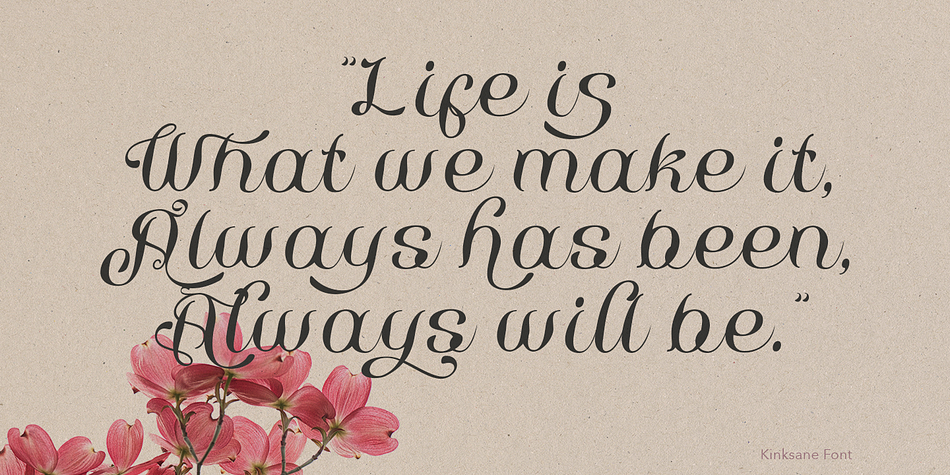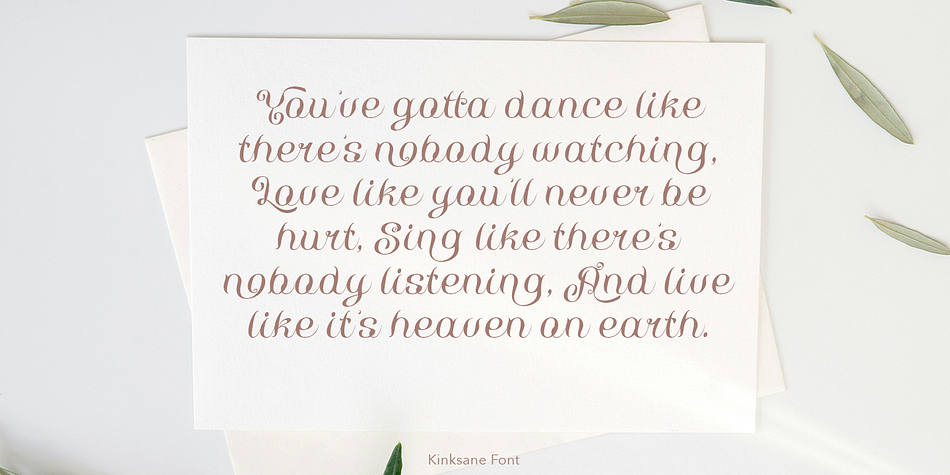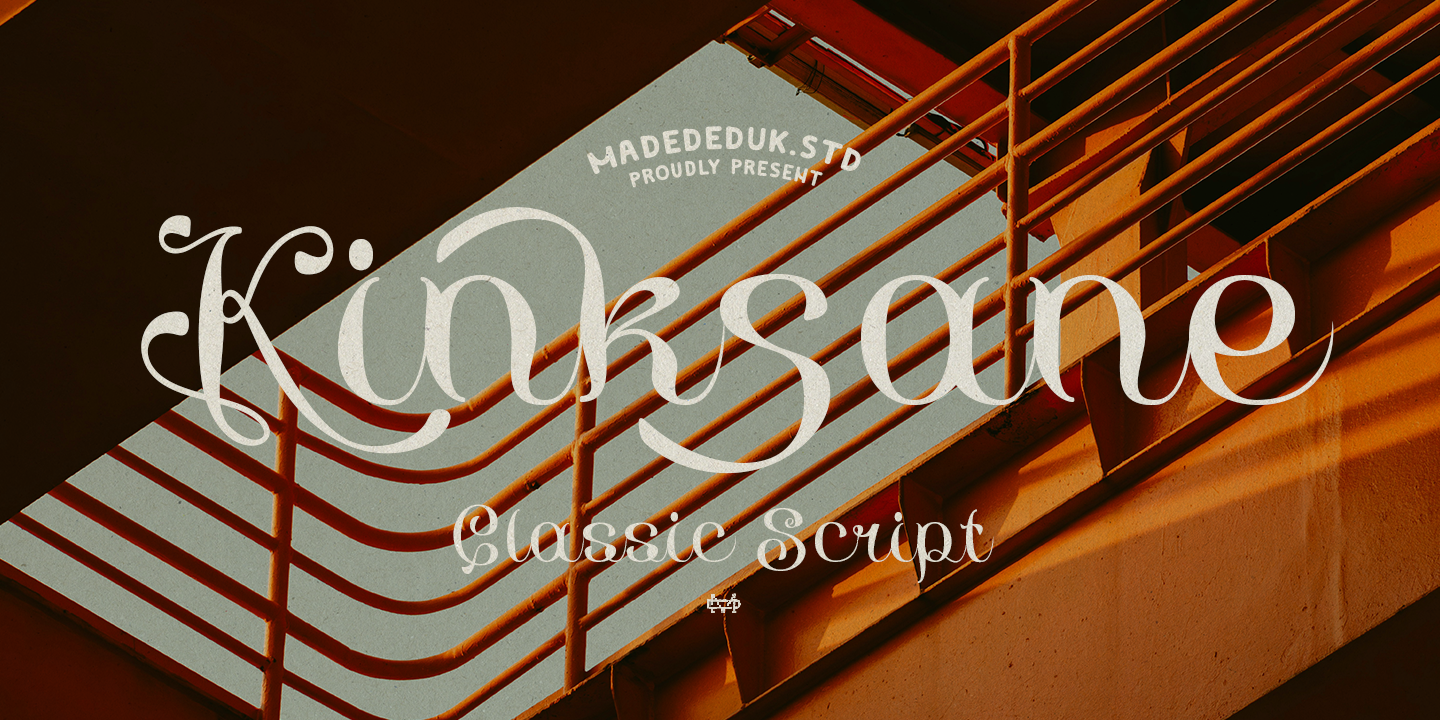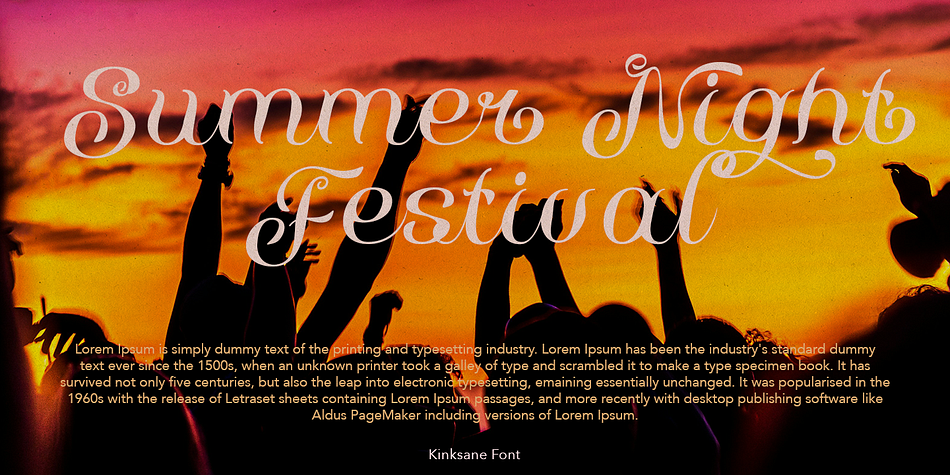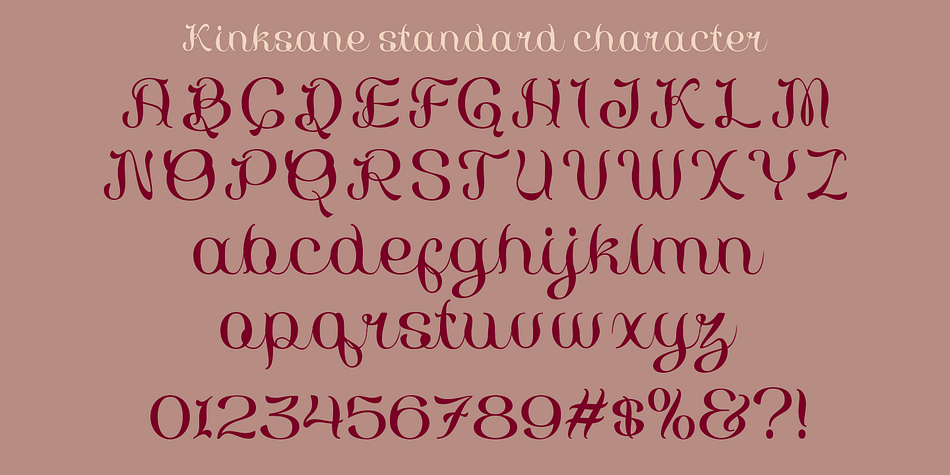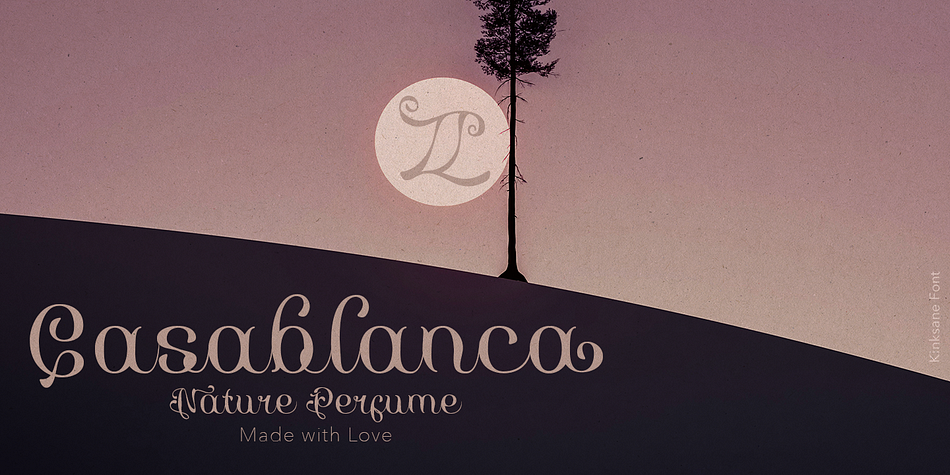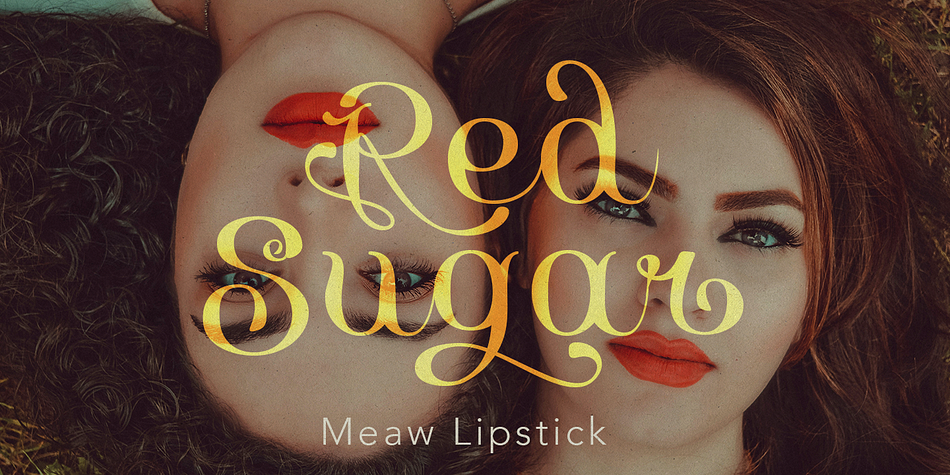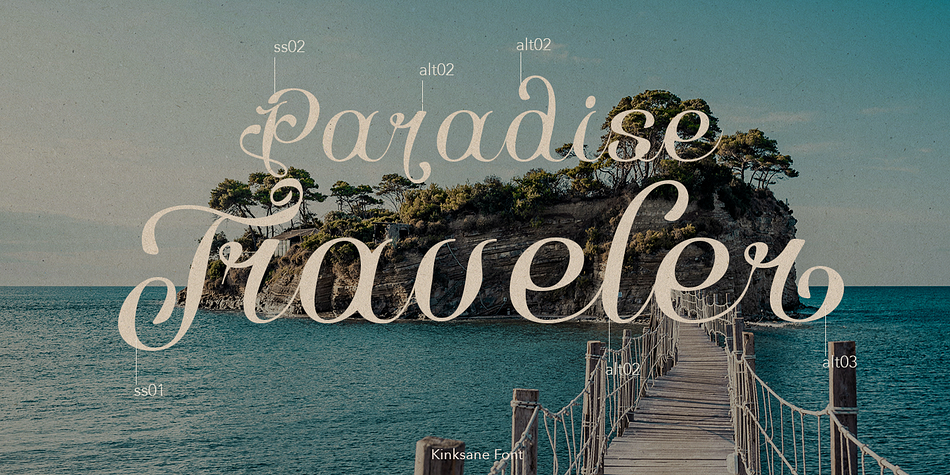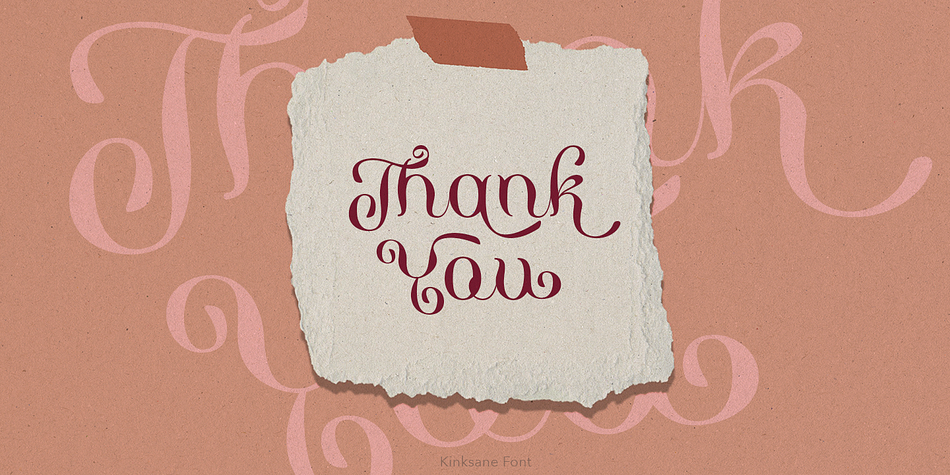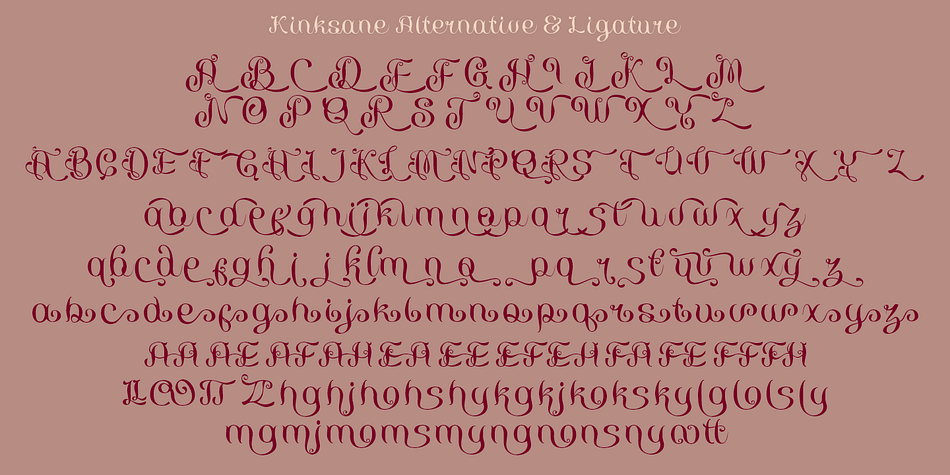
Kinksane
Designed by Suandana Ipandemade, Kinksane is a script font family. This typeface has two styles and was published by madeDeduk.
Kinksane is a classic script font comes with curly style with much alternative and ligature.  This font is very perfect for many display purposes in your product design if you want to a modern vintage style look. Such as book covers, product labels, logos badges, drink bottles, tattoo shop, coffee shops, and many more.
- Alternative
- Ligature